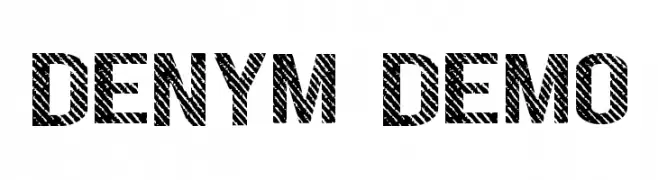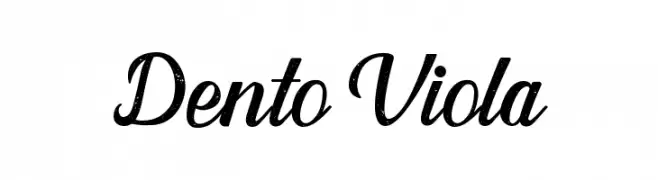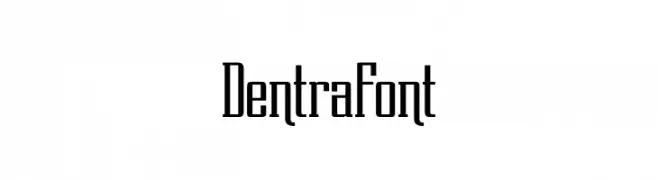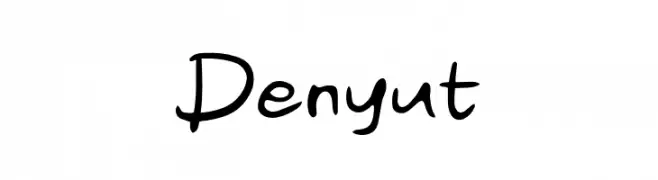
A decorative, distressed font with a playful, hand-drawn style.
A playful, tooth-themed decorative font with a bold, three-dimensional style.
A bold, textured script font with a vintage, handcrafted feel.
A bold, vintage-style font with tall, narrow characters and sharp serifs.
A bold, playful font with a dripping effect and rounded characters.
Bold, textured font with diagonal stripes for a modern, industrial look.
A playful, handwritten font with smooth, flowing lines and a casual style.